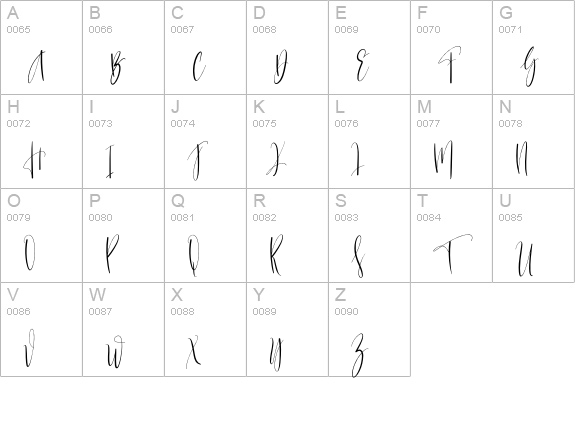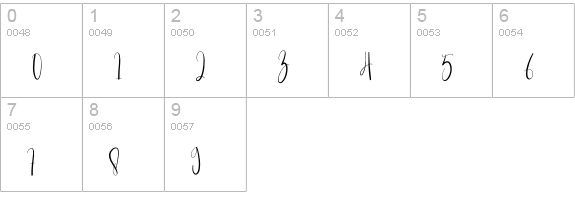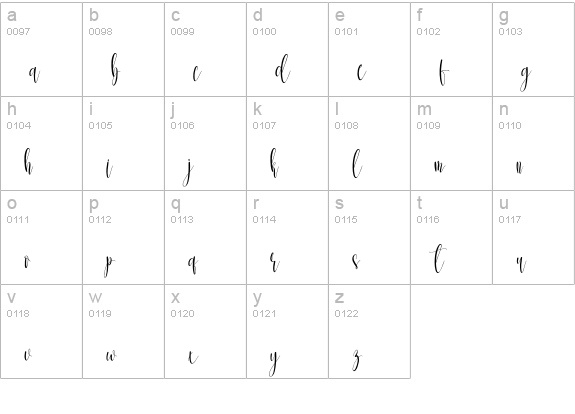
Billions Font Details
Billions is a free for personal use font in the Script > Handwritten category, designed by scratchones. It has been downloaded 1 times and is available for Windows, Mac and Linux.
Introducing the exquisite Billions font, a versatile typeface that exudes elegance and sophistication. With its sleek lines and modern aesthetic, Billions is perfect for adding a touch of refinement to any design project. Whether you're working on a branding campaign, website, or print materials, this font is sure to make a statement.